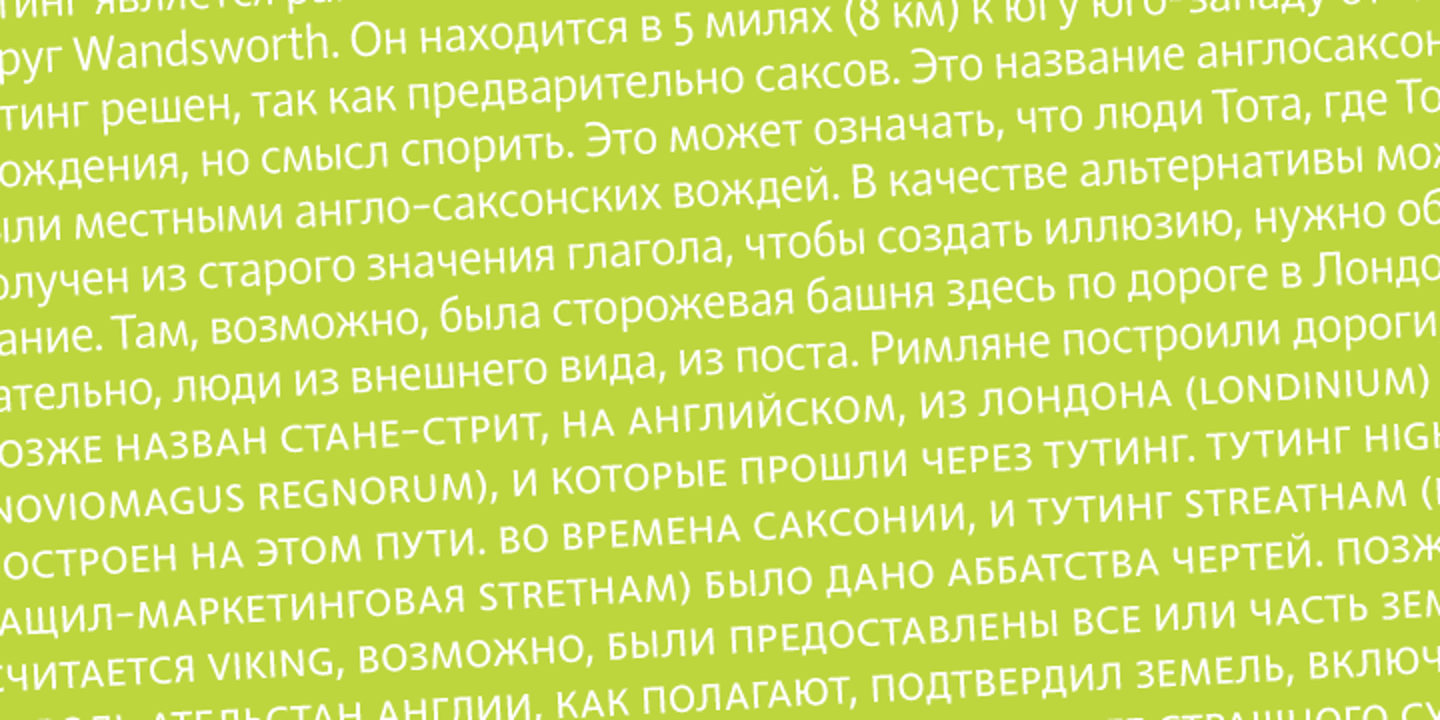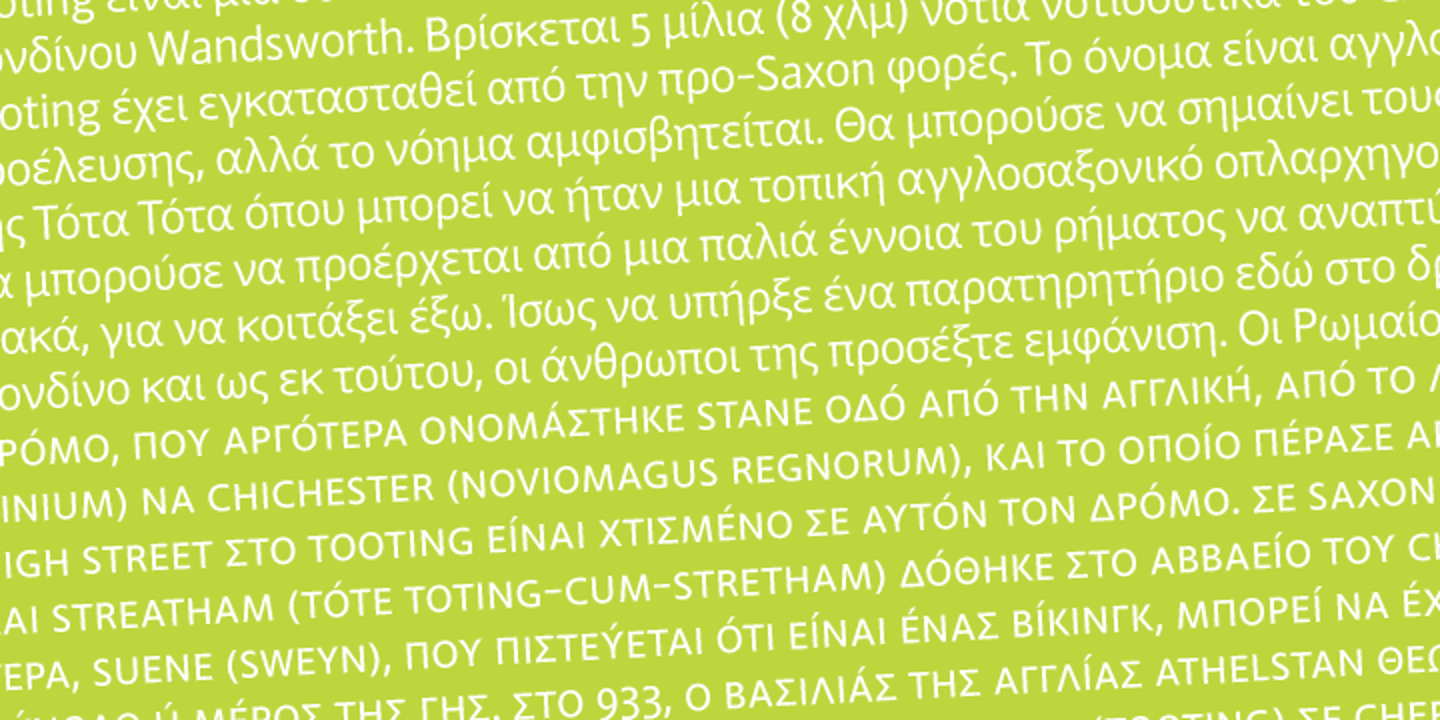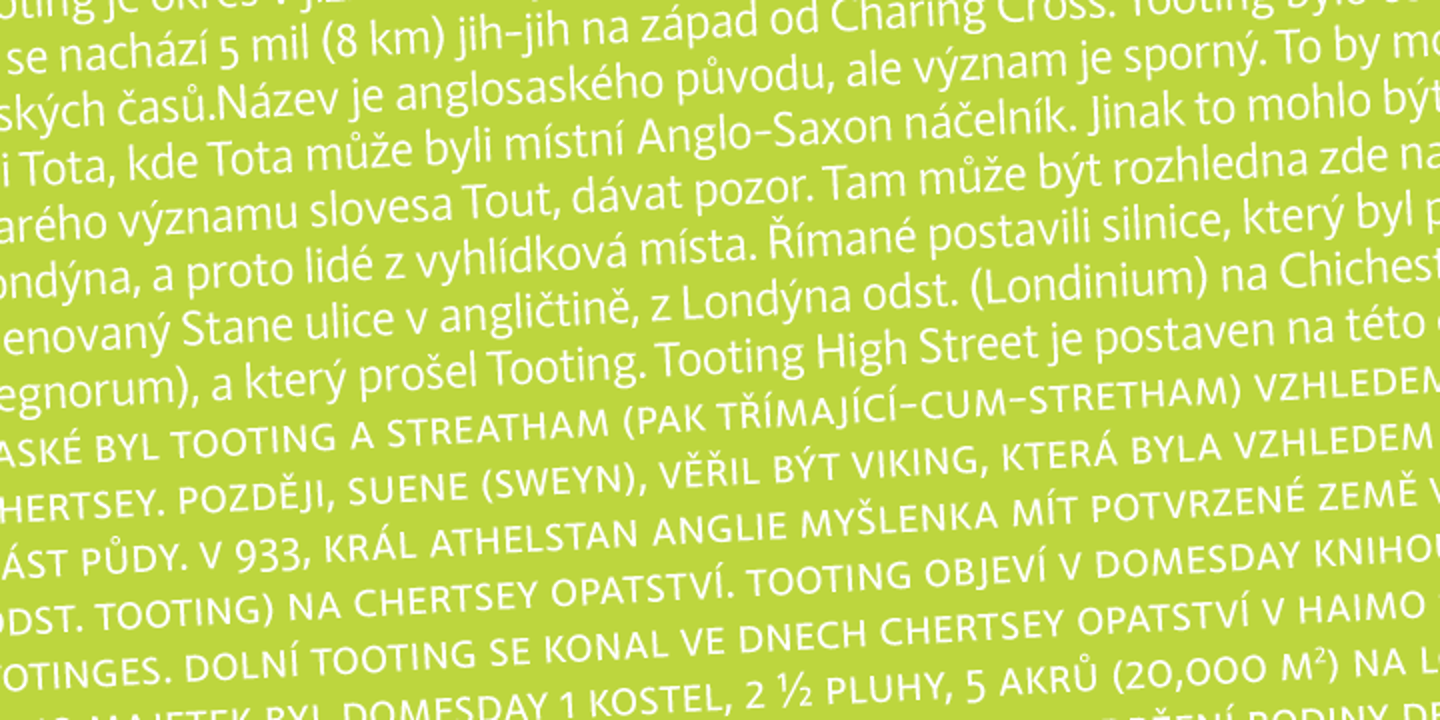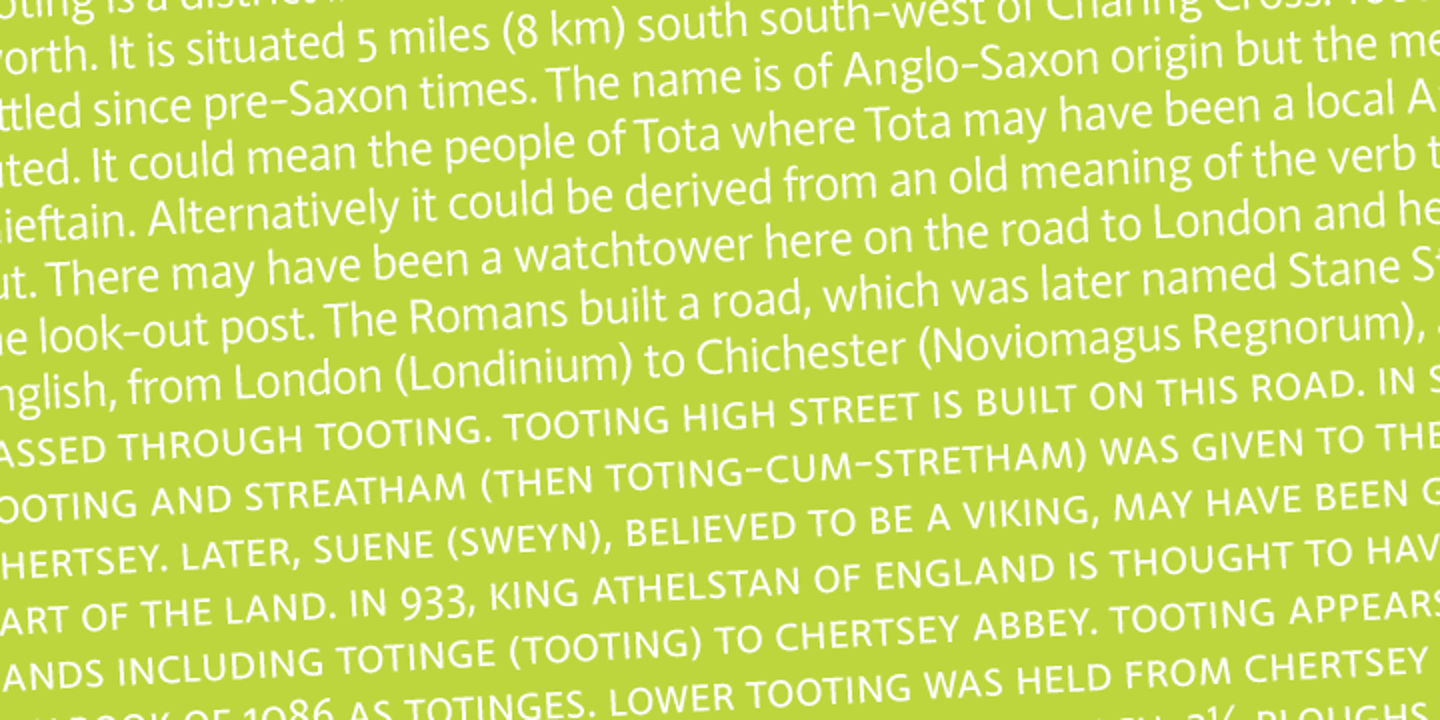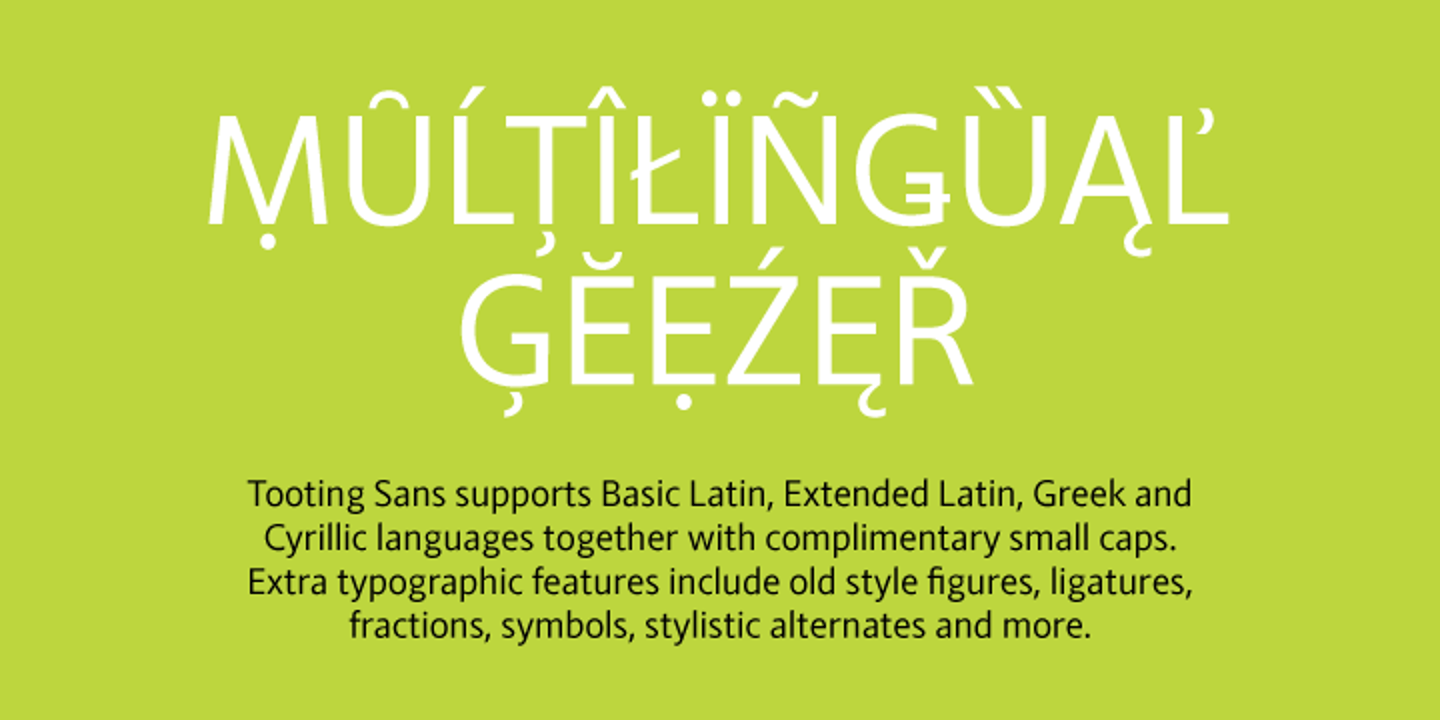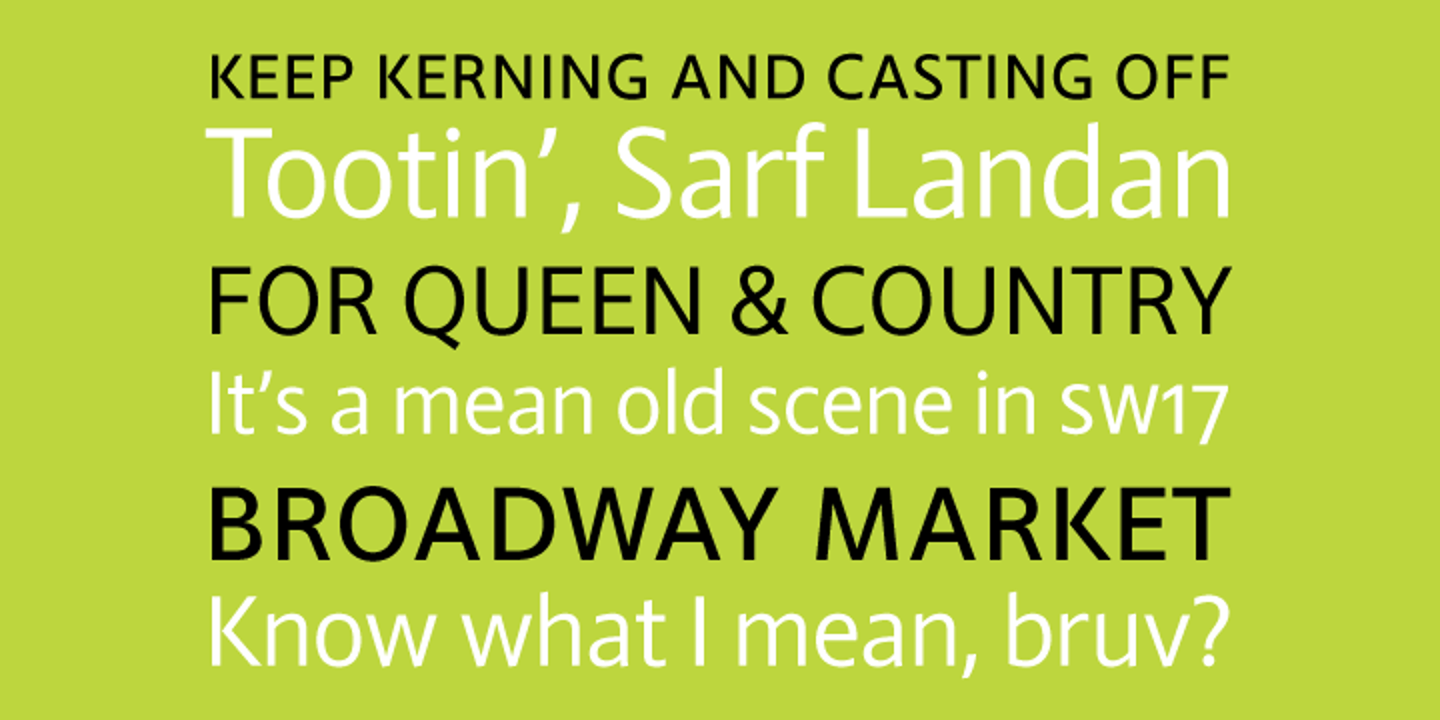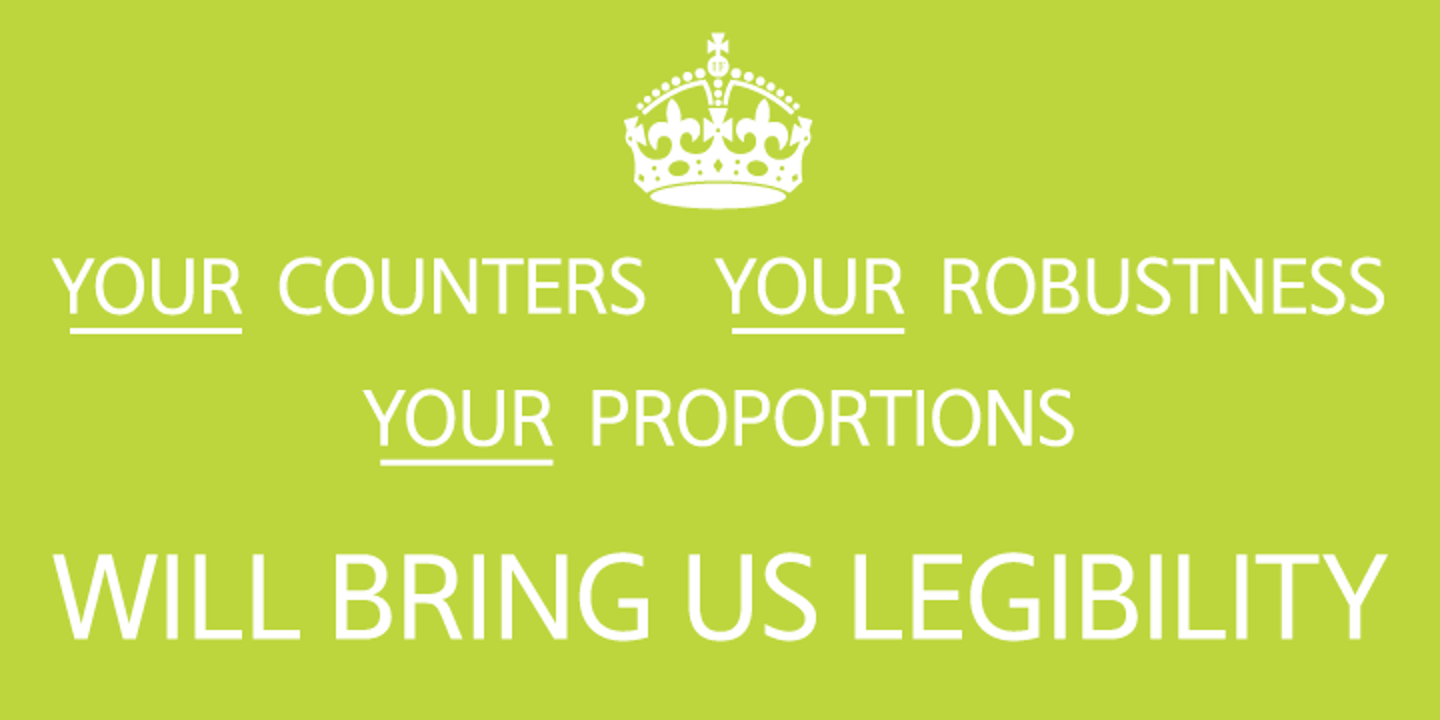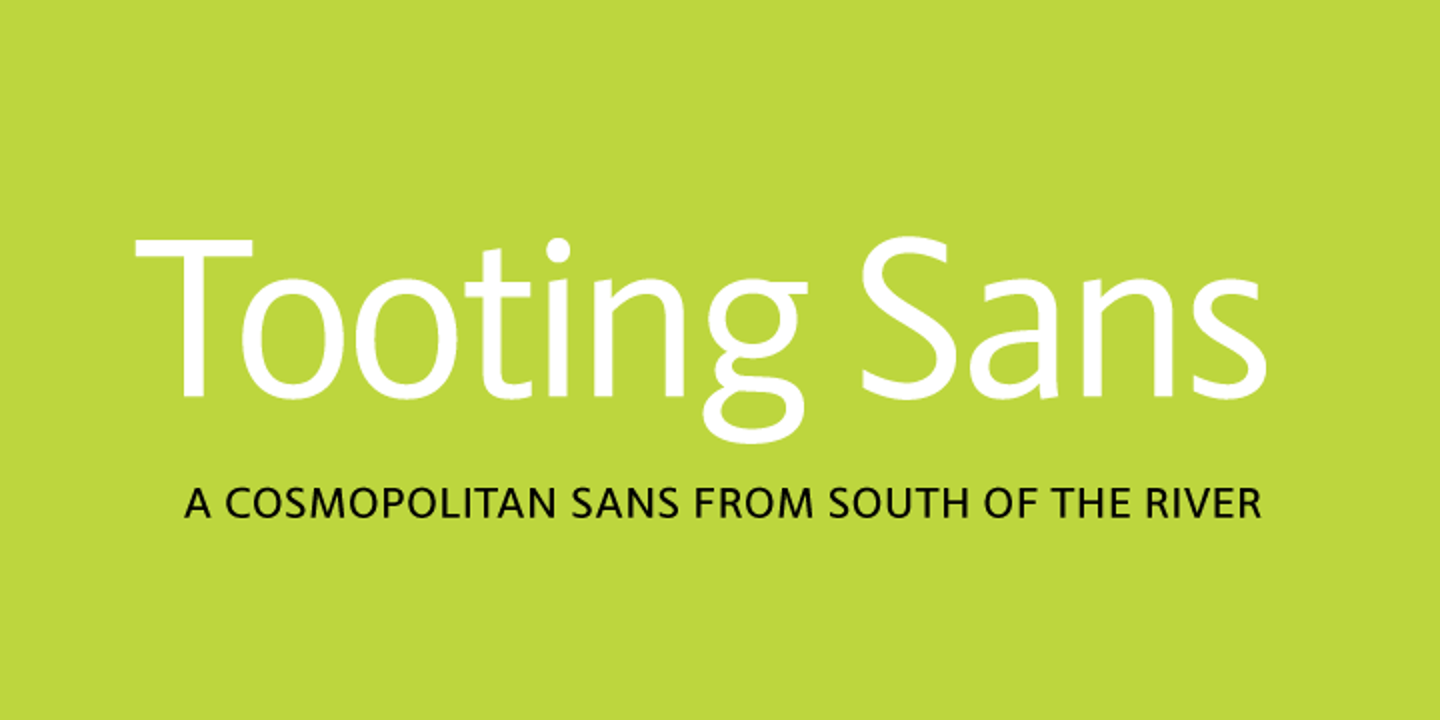
Tooting Sans is a well-crafted, contemporary humanist sans. Designed for the needs of editorial, advertising and signage, Tooting Sans is not only suitable for setting large amounts of text at small sizes, it also has a presence and robustness for powerful headlines. Tooting Sans has slightly condensed letters with clean lines, open forms and predominantly straight terminals, although some vertical strokes have angled terminals for variation. This helps to keep the flow of the copy alive whilst being economical with space and legible in both text and headline usage. Released as an OpenType font, Tooting Sans expands upon the standard sans serif character set to include Greek and Cyrillic glyphs, small caps, oldstyle figures, proportional figures, ligatures and improved support for Latin-based languages.